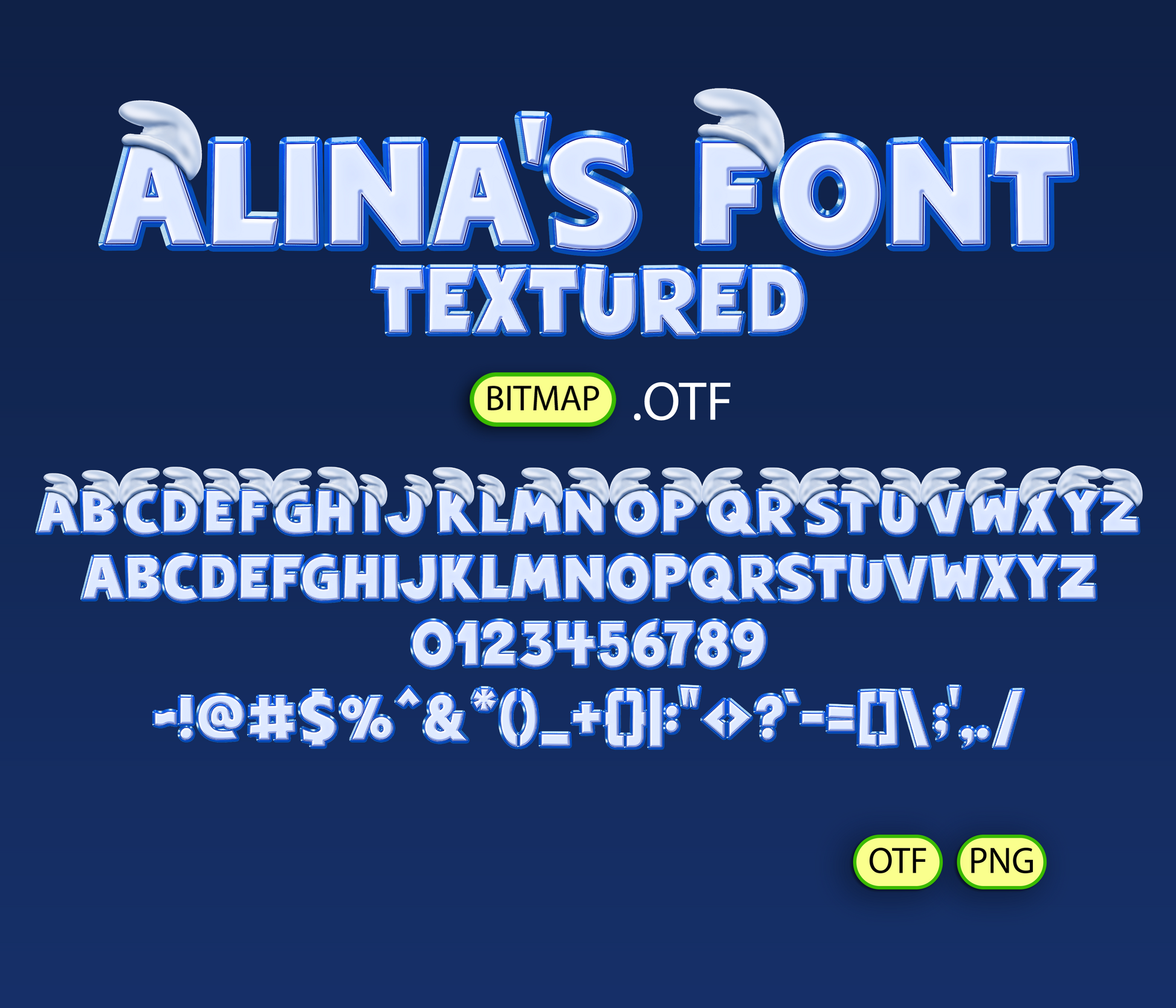
Tiny Blue Folk Font Textured
Discover the enchanting realm of tiny blue forest dwellers, a cherished classic that infuses magical woodland charm into your designs with its distinctive character and merry spirit. Our Tiny Blue Folk-inspired font embodies the essence of this treasured cartoon, defined by its enchanted woodland themes and cheerful, soft aesthetic. Every character mirrors the endearing, mischievous nature of the little azure community and their mushroom dwellings, ideal for projects aiming to capture the nostalgia and enduring appeal of this animated favorite.
What font is the Tiny Blue Folk font?
Imagine a typeface that brilliantly conveys the cartoon's magical forest ambiance and its delightful style. Our Tiny Blue Folk font is crafted to reflect the show's signature appearance, emphasizing gentle, rounded letterforms reminiscent of the diminutive blue characters and their fantastical universe. It contains a comprehensive character set with alphabets, numerals, and special symbols, providing a complete solution for various creative endeavors, from themed celebration invitations to whimsical product designs.
What You Can Do With Tiny Blue Folk Textured Font
The Tiny Blue Folk font offers versatility for numerous creative applications:
1. Themed Celebration Materials: Design charming invitations for Tiny Blue Folk-themed gatherings or magical cartoon festivities.
2. Youth Product Design: Excellent for creating clothing, playthings, and accessories that reflect the blue woodland creatures' appeal.
3. Online Content Creation: Apply the font to add magical woodland flair to web pages, online journals, and social platforms.
4. Learning Resources: Integrate the font into teaching tools for fantasy or animation-related instruction.
5. Custom Cards and Paper Products: Create personalized paper goods or greeting cards featuring a Tiny Blue Folk theme.
6. Marketing Collateral: Implement in campaigns for family-oriented products or events.
7. Home Decoration: Produce wall decorations, stickers, or room signs for children's spaces, play zones, or themed eateries.
8. Festival Displays: Create eye-catching placards and streamers for cartoon-centered events or gatherings.
9. Publishing Design: Utilize in publications on animation, family entertainment, or beloved cartoons.
10. DIY Projects: Perfect for handcrafts, memory books, and artistic endeavors inspired by the Tiny Blue Folk.
• Textured and Clean Versions: Each font comes in both a whimsical, woodland-inspired variation and a sleek, non-textured option for varied design requirements.
• Full Character Range: Provides an extensive selection of characters for unlimited design flexibility.
The Tiny Blue Folk font transcends mere typography; it's a tribute to the classic cartoon that has brought joy to countless generations.